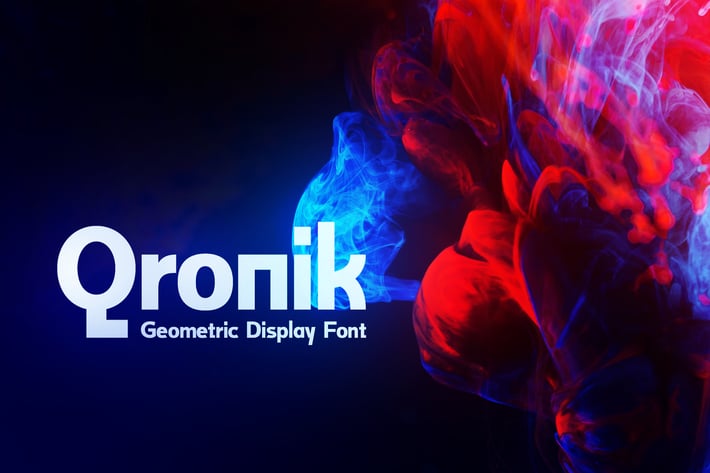
Font Qronik
Introducing Qronik, a new, modern geometric display font. It creates a beautiful atmosphere to your design and feels playful. Make your branding shine, create atmosphere to present your product, connect with audience with an unique touch. Qronik geometric display font is created to boost your branding performance and engagement along with some secret sauce cooked at our studio.
Total 218 Glyphs
A-Z Standard Capital Letters
a-z Standard Smaller Letters
0-9 Numerals
Standard Punctuations (PUA)
Multingual Characters
Alternates